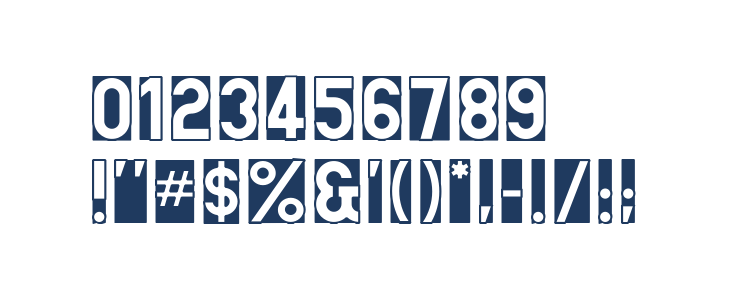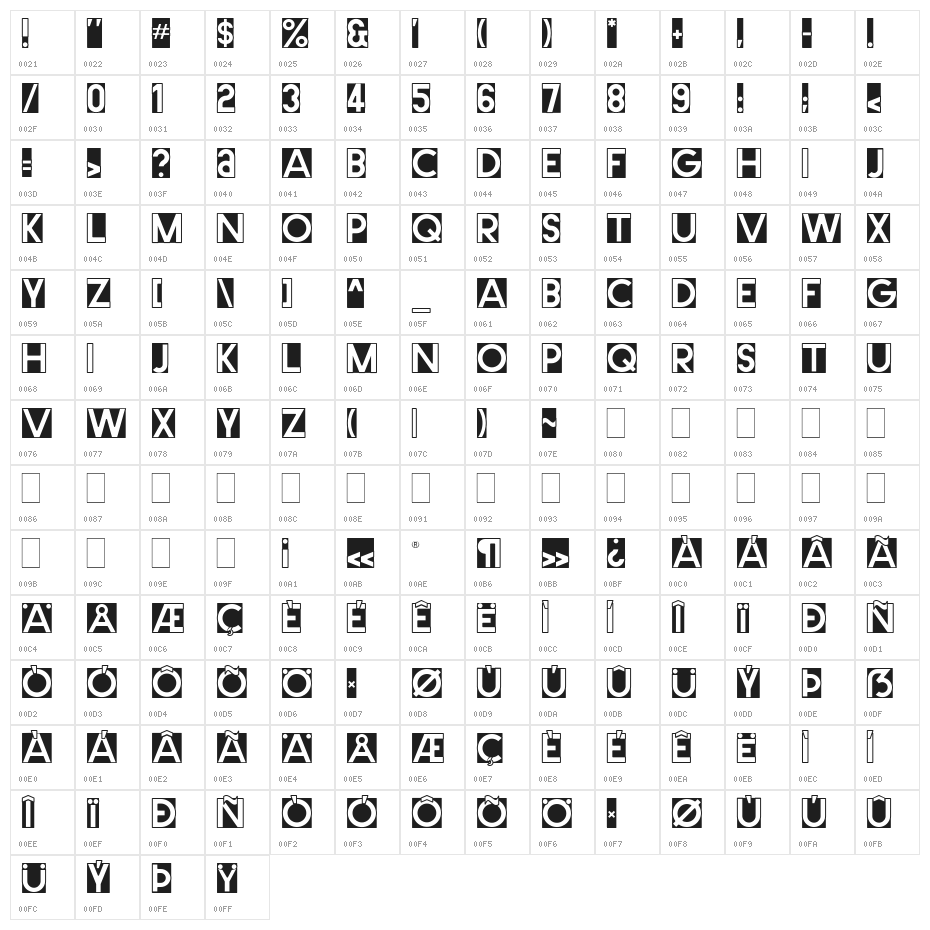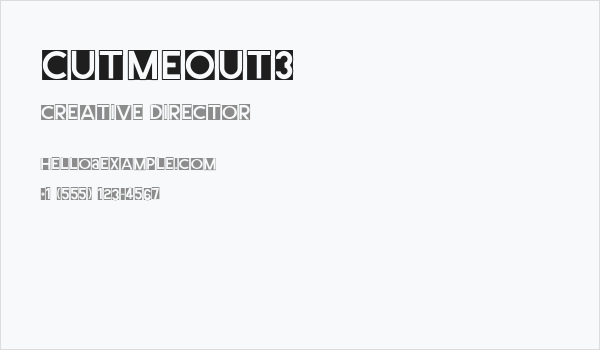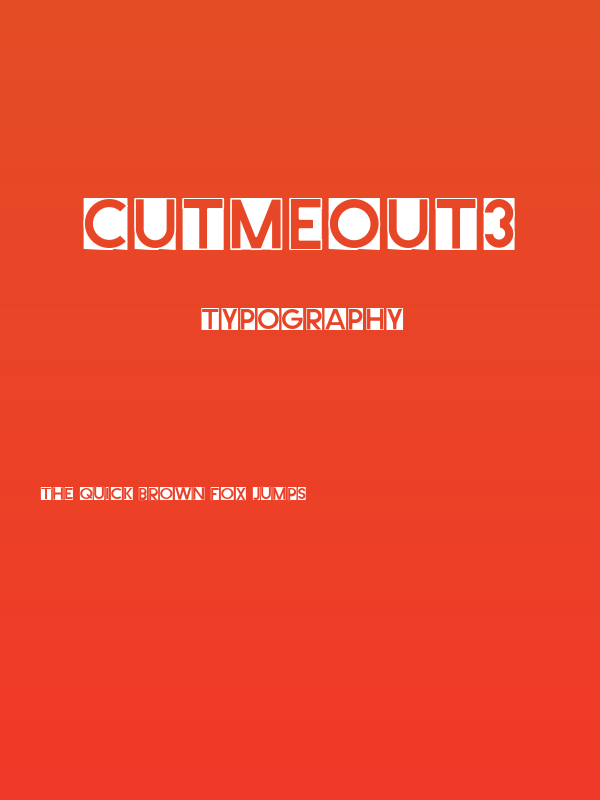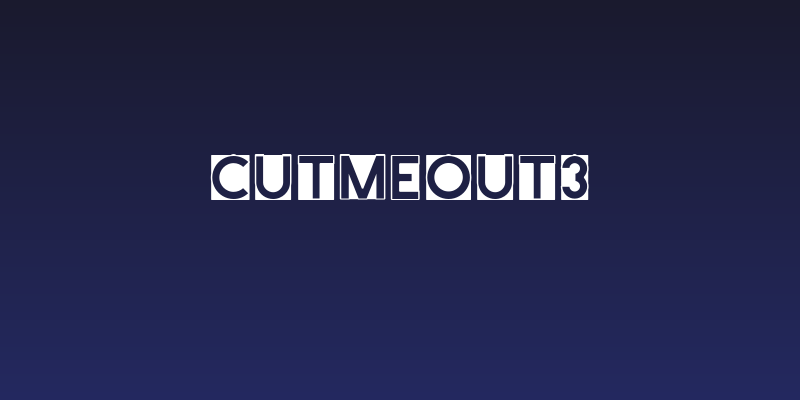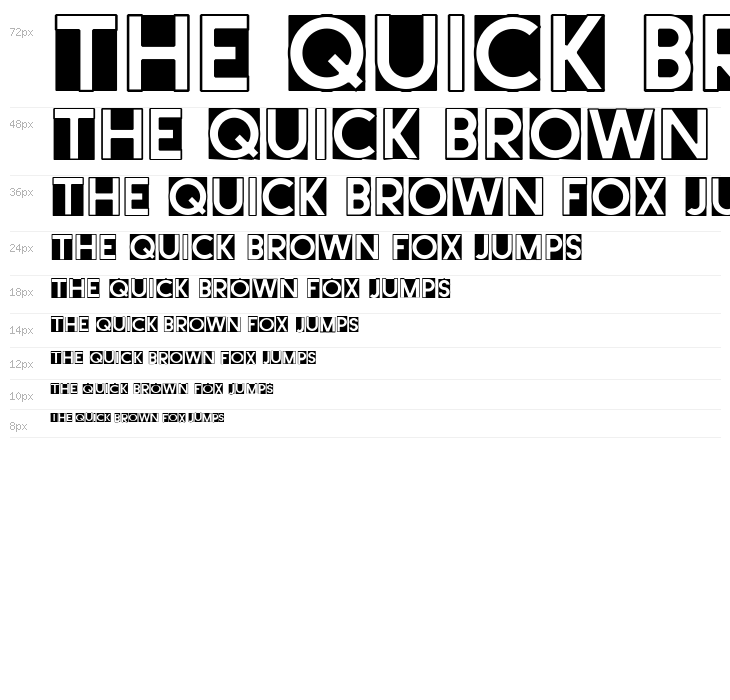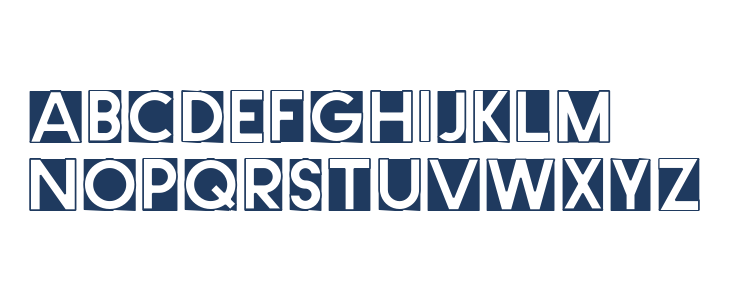
CutMeOut3 Font
CutMeOut3 Description
This font features a bold, geometric style with a unique cut-out effect that creates a striking visual contrast. Each character is enclosed within a solid black square, with white cut-out sections that form the letters and numbers. The design is modern and eye-catching, making it ideal for projects that require a strong visual impact. The uppercase and lowercase letters maintain a consistent style, while the numerals and special characters follow the same bold, cut-out aesthetic. This font is perfect for creating attention-grabbing headlines, posters, and logos.
| Proposed Projects | Ideal for headlines, posters, logos, and any design requiring a bold statement. |